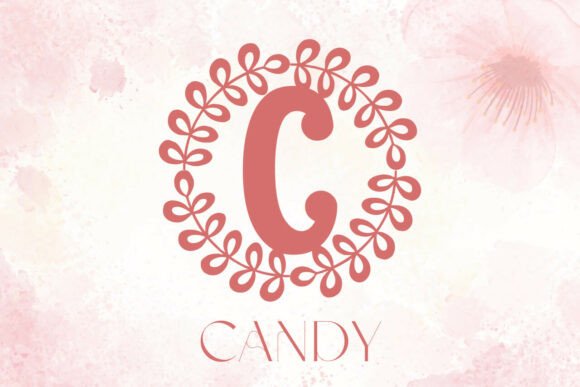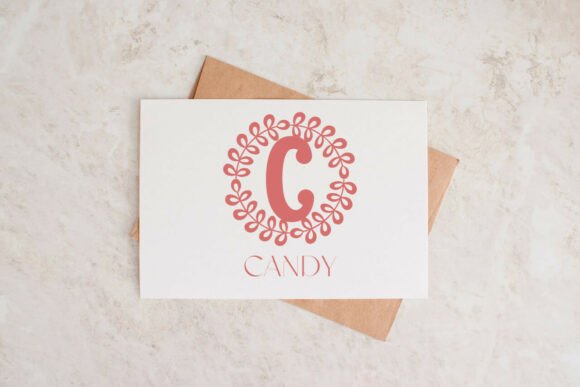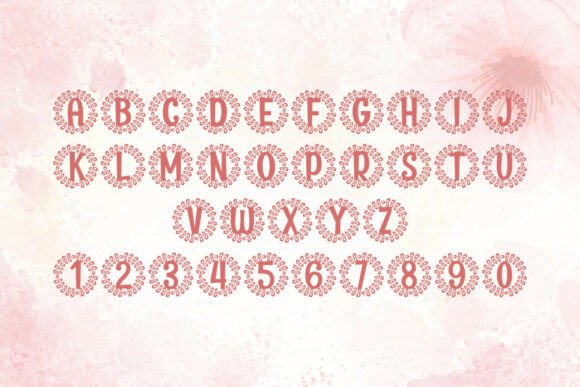
Introduction to Noblewick Monogram Font
As a designer, have you ever been tasked with creating a custom monogram for a special project, only to find yourself pouring over countless font options, trying to find the perfect fit? For those moments, there’s a solution: Noblewick Monogram Font. This elegant font turns simple initials into sophisticated emblems, perfect for weddings, boutique logos, and premium packaging.
Noblewick Monogram Font is a valuable addition to any designer’s toolkit, offering a high-quality design resource that’s easy to use and customize. With its smooth lines and generous counters, this font is perfect for creating beautiful, professional-looking designs that stand out from the crowd.
Key Features of Noblewick Monogram Font
- Unique Monogram Design: Noblewick Monogram Font offers a distinctive and elegant monogram design perfect for creative projects.
- High-Quality Vectors: The font is available in high-quality vector format, making it ideal for print and digital use.
- Customizable: The font’s monogram design can be customized to fit individual needs, making it a versatile design resource.
Honest Review: Noblewick Monogram Font
I recently stumbled upon the Noblewick Monogram Font and was immediately drawn to its unique, high-quality design. This font is a game-changer for any creative project that requires a touch of elegance and sophistication.
- Beautiful, intricate design details that add a level of sophistication to any project
- Perfect for logo designs, letterheads, and other branding materials
- Includes a range of glyphs and characters to accommodate different languages
While the Noblewick Monogram Font is an excellent addition to any designer’s toolkit, there are a few limitations to consider:
- Only available in a limited range of weights and styles
- May not be suitable for body text or other large blocks of text
Overall, I’m thoroughly impressed with the Noblewick Monogram Font. Its high-quality design and versatility make it an excellent choice for a wide range of creative projects. While it may have some limitations, I believe it’s a worthwhile investment for any designer looking to elevate their designs to the next level.
Noblewick Monogram Font
The Noblewick Monogram Font is a high-quality design resource that offers a unique and creative way to add a personal touch to your projects. With a transparent background, this font is perfect for designers who want to create visually appealing and professional designs.
Tips for Getting the Most Out of Noblewick Monogram Font
To get the most out of the Noblewick Monogram Font, try using it in combination with other design elements, such as graphics and images, to create a unique and eye-catching design. You can also experiment with different font sizes and colors to add visual interest to your design.